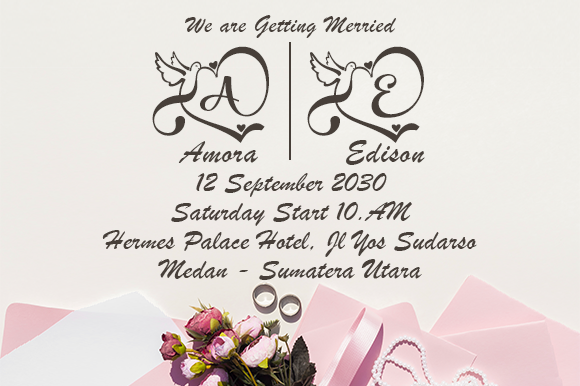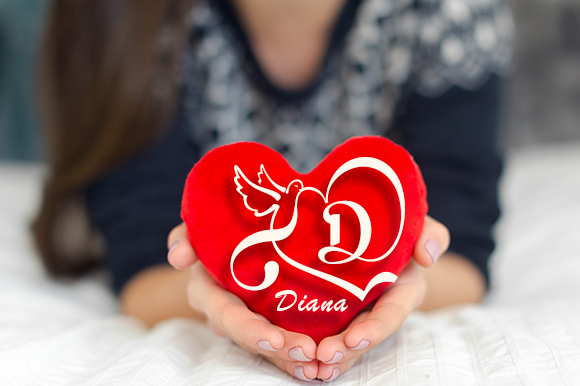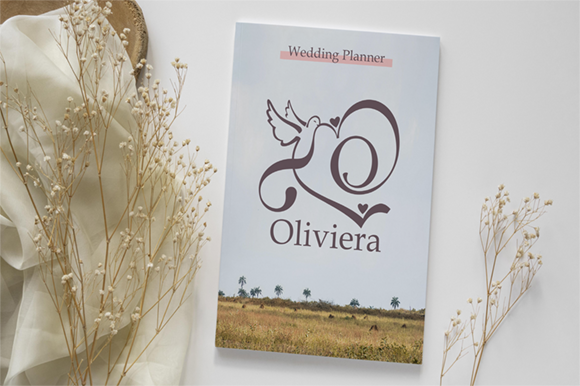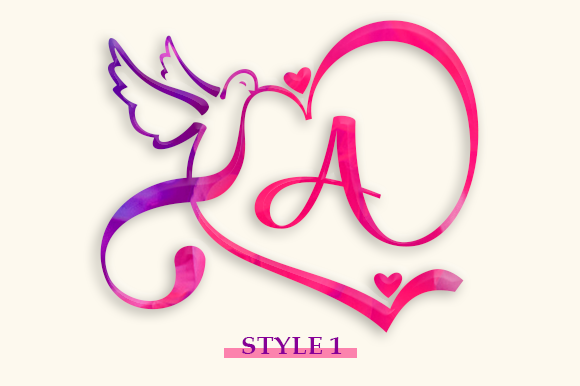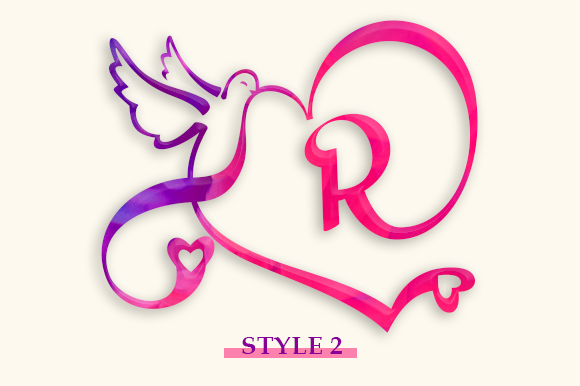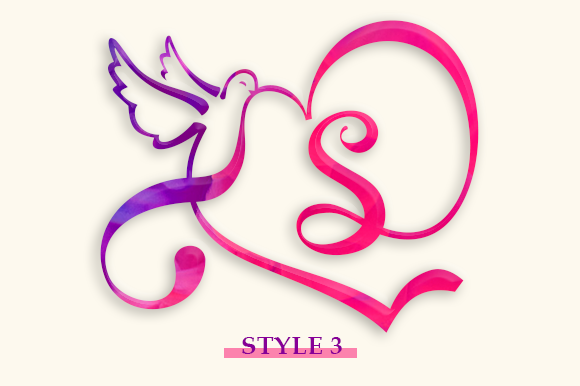
Introduction to Lovebird Monogram Font
Have you ever stumbled upon the perfect design element that makes your creative project stand out? For many designers, that moment comes when they discover the perfect font – one that captures the essence of their vision and elevates their work to new heights. For us, that moment came with the discovery of the enchanting Lovebird Monogram Font.
This elegant decorative font is more than just a pretty face; it’s a design resource that offers endless possibilities for creative expression. With its lovely ornaments and authentic feel, Lovebird Monogram Font is perfect for crafting gorgeous wedding invitations, beautiful stationery art, eye-catching social media posts, and cute greeting cards.
What sets Lovebird Monogram Font apart is its PUA encoding, which makes it easy to access all the glyphs and swashes, allowing designers to unlock its full potential and create high-quality designs with ease. And the best part? It’s available for free download, making it a valuable addition to any designer’s toolkit.
Key Features of Lovebird Monogram Font
- Unique, hand-drawn design suitable for a creative project or a romantic theme.
- Perfect for designers, crafters, and artists looking for a distinctive and elegant monogram font.
Honest Review: Lovebird Monogram Font
As a designer, I’m always on the lookout for high-quality design resources to elevate my creative projects. Recently, I stumbled upon the Lovebird Monogram Font, and I’m excited to share my honest review.
- High-quality design: The Lovebird Monogram Font is beautifully crafted with intricate details and a unique style that sets it apart from other monogram fonts.
- Limited character set: The Lovebird Monogram Font has a limited character set, which may not be suitable for complex design projects or those requiring extensive text editing.
Overall, I’m impressed with the Lovebird Monogram Font’s unique design and high quality. While it has some limitations, it’s a great option for designers looking for a free, high-quality design resource for their creative projects.
The Lovebird Monogram Font is a beautiful and unique design resource that can add a personal touch to your creative project. It features a high-quality, intricate design that is perfect for various applications.